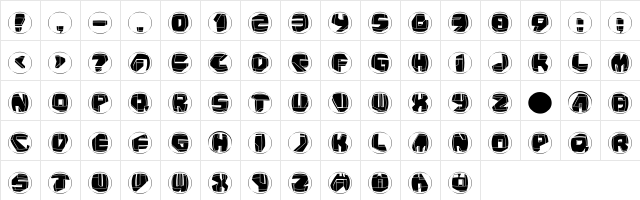
NeoPanRings Regular Free Font
NeoPanRings Regular
Design Context for NeoPanRings
NeoPanRings is a composed and adaptable typeface that performs quietly and consistently across a wide range of design contexts.